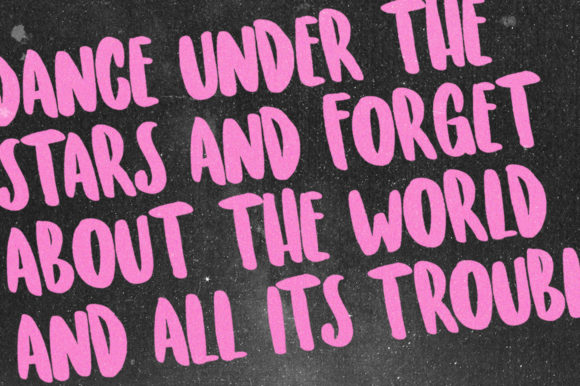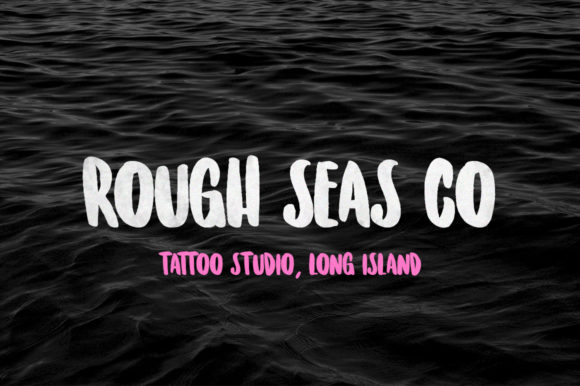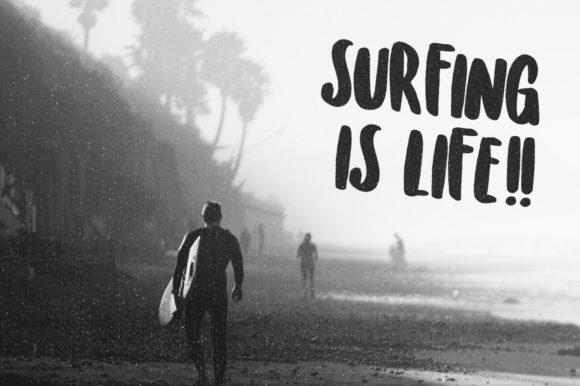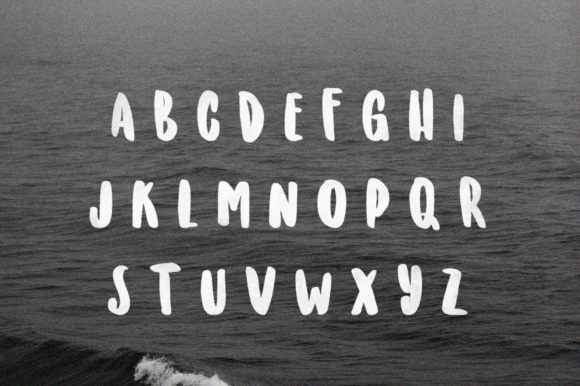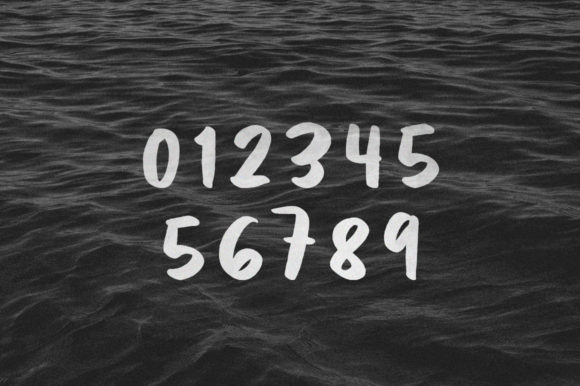
Introduction to Rainshine Font
Do you remember that moment when you stumbled upon the perfect font for your creative project? For designers, it’s like hitting the jackpot – the right font can make all the difference between a good design and a great one. I recall that feeling when I discovered the Rainshine Font, a casual, fun display font that’s as versatile as it is charming.
What sets Rainshine Font apart is its unique, hand-drawn quality, reminiscent of a brush pen stroke. With its clean and quirky design, it’s the perfect fit for logos, branding, social media, and crafty DIY projects. Whether you’re a seasoned designer or a hobbyist, Rainshine Font is a valuable addition to your design resource arsenal.
Key Features of Rainshine Font
- Transparent Background: The Rainshine Font features a transparent background, making it ideal for creative projects that require a subtle design element.
- High-Quality Design: The Rainshine Font is designed with high-quality in mind, ensuring that it looks great in a variety of contexts and resolutions.
- Large Character Set: The Rainshine Font features a large character set, including uppercase and lowercase letters, numbers, and punctuation marks.
- High Resolution: The font is designed at a high resolution, making it suitable for use in large-scale designs and prints.
- Perfect for Creative Projects: The Rainshine Font is a versatile design element that can be used in a variety of creative projects, from branding and marketing materials to digital art and graphics.
Honest Review: Rainshine Font
As a designer, I’m always on the lookout for high-quality design resources to elevate my creative projects. Recently, I stumbled upon the Rainshine Font, and I must say, it’s a great addition to my design library.
Here’s what works well: ✨ The Rainshine Font is incredibly versatile and can be used in a variety of contexts, from digital displays to print materials. Its sleek and modern design makes it perfect for minimalist branding and typography-based designs. The font is also highly legible, even on small screens.
However, there are a few limitations to consider: ⚠️ The font is not suitable for use in certain situations, such as in small font sizes or on low-resolution displays. Additionally, the font’s simplicity may make it difficult to pair with more complex typography.
Overall, I’m impressed with the Rainshine Font and would recommend it to designers working on creative projects. Its high quality and versatility make it a valuable resource in any design library.
- Legible even in small font sizes
- Suitable for digital displays and print materials
Design Tips
To get the most out of the Rainshine Font, use it in conjunction with a high-quality design resource, such as a beautiful image or a creative project. Experiment with different font sizes and styles to create a visually appealing design. You can also use the Rainshine Font as a free download and incorporate it into your design project.